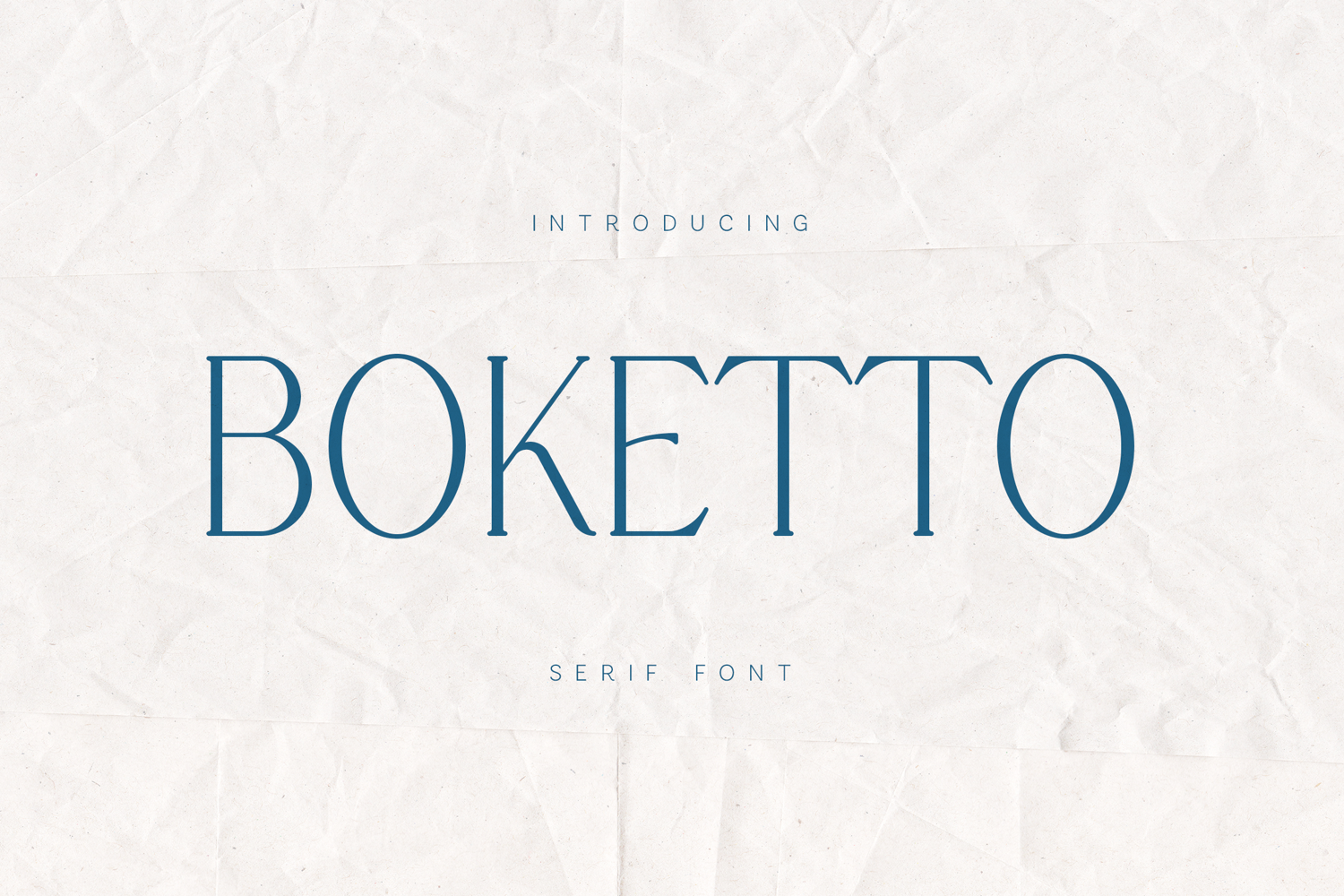
Boketto Elegant Contemporary Serif Font
Boketto is an elegant contemporary serif font designed for calm, poetic, and refined typography. With graceful curves, soft contrast, and a gentle organic rhythm, Boketto is ideal for editorial design, book covers, branding, invitations, quotes, packaging, and timeless visual storytelling.
The font carries a quiet sophistication inspired by introspection and subtle beauty. Its delicate serifs and balanced proportions make Boketto perfect for headlines, short passages, and expressive compositions where elegance and atmosphere matter more than boldness.
Boketto is crafted for designers who value softness, emotion, and timeless serenity in typography.